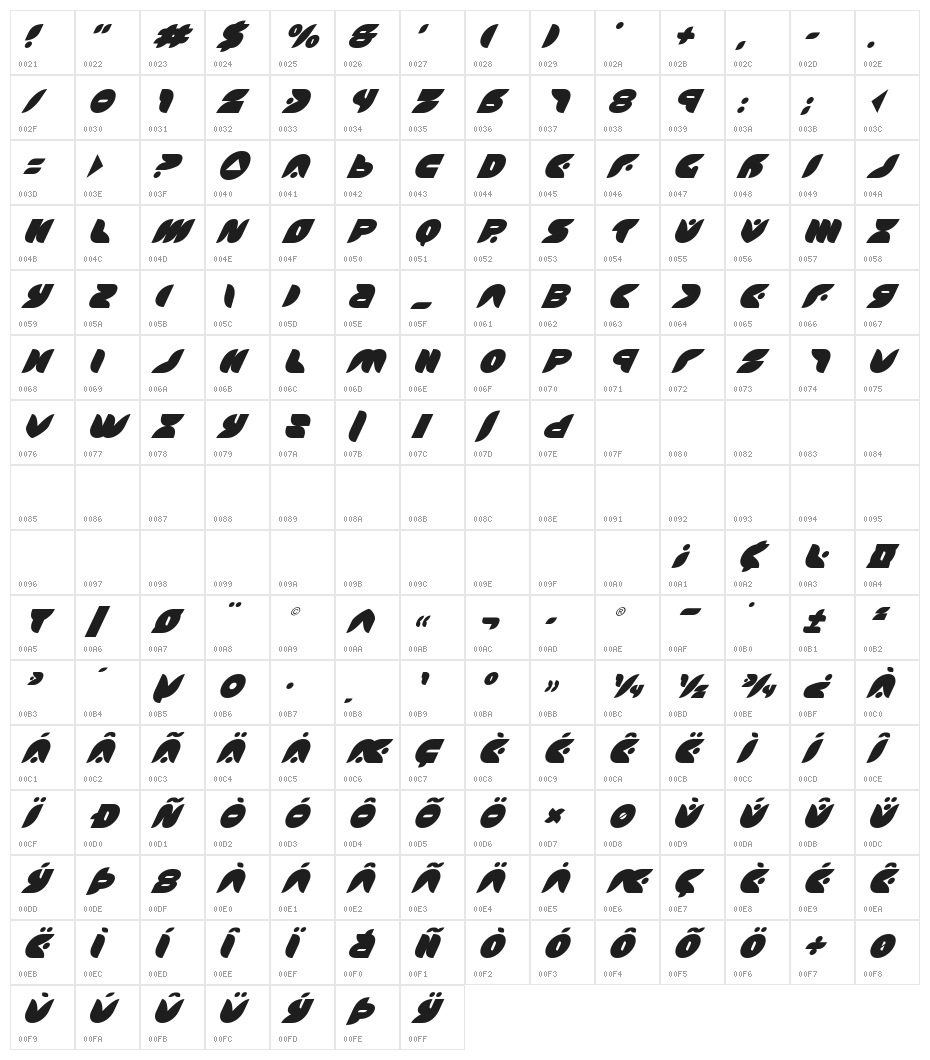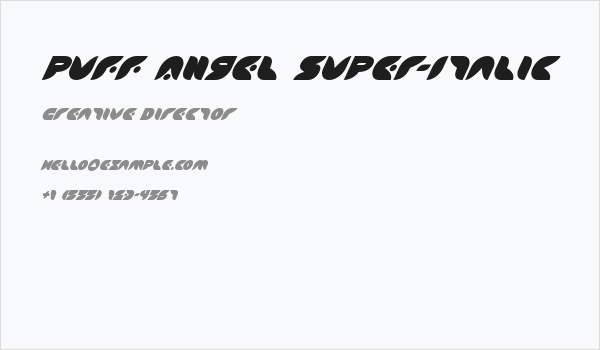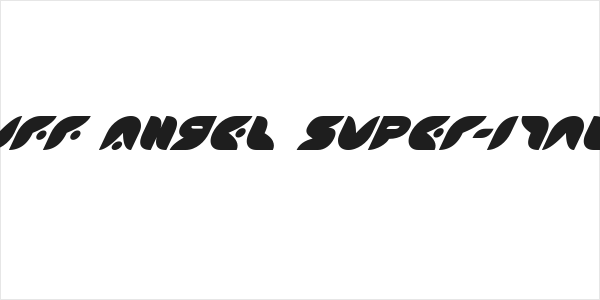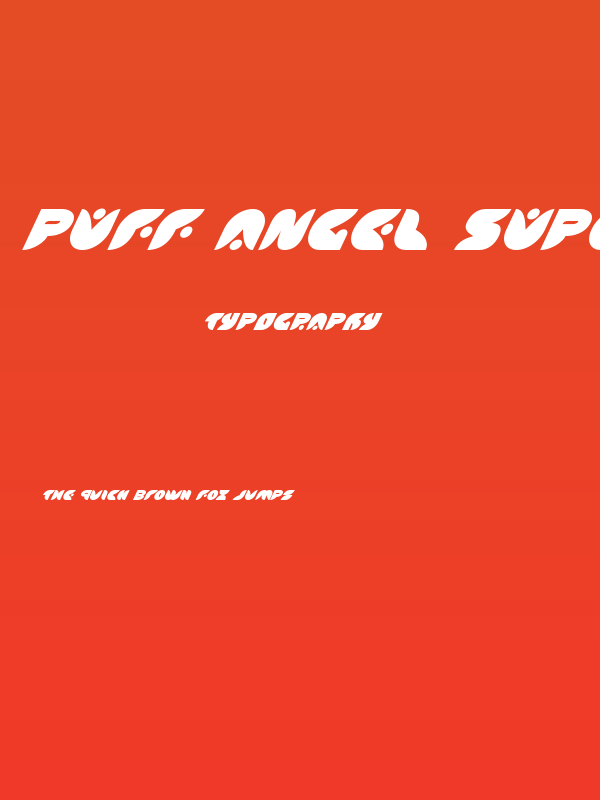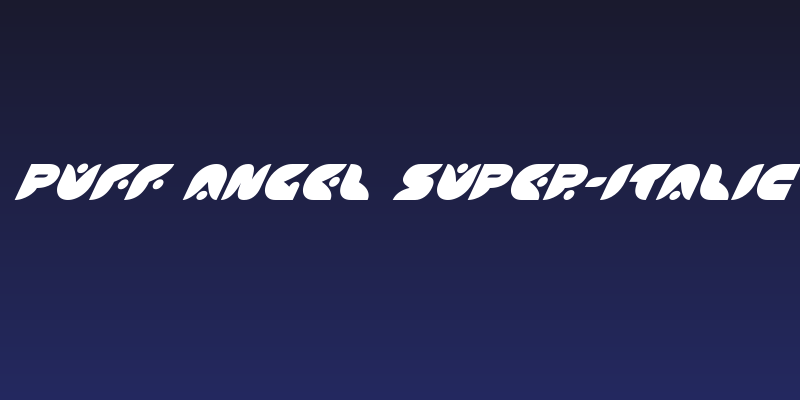
Puff Angel Super-Italic Font
Puff Angel Super-Italic Description
This font features a bold and dynamic style with a strong emphasis on geometric shapes and curves. The characters are heavily stylized, with thick strokes and a playful, almost cartoonish appearance. The letters are slanted, giving an italicized effect that adds to the energetic and lively feel of the font. The design incorporates unique cutouts and rounded edges, creating a sense of movement and fluidity. This font is highly decorative, making it suitable for eye-catching designs and creative projects. The numbers and special characters maintain the same bold and whimsical style, ensuring consistency across all elements.